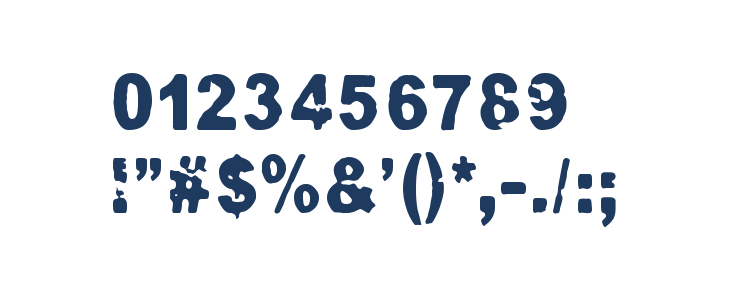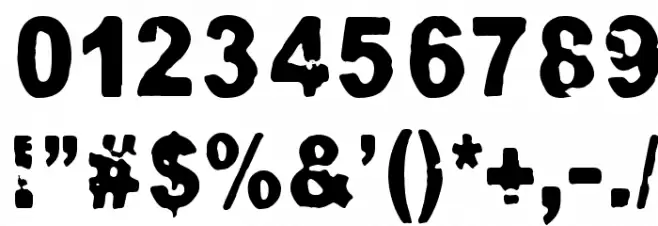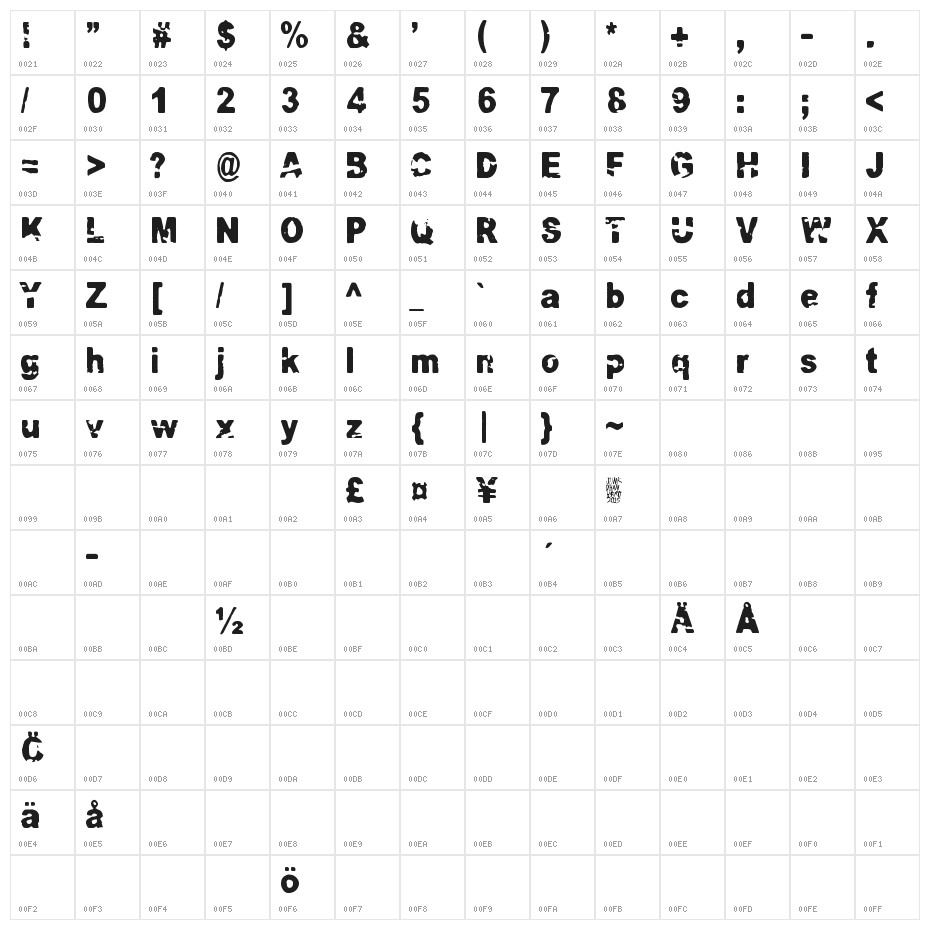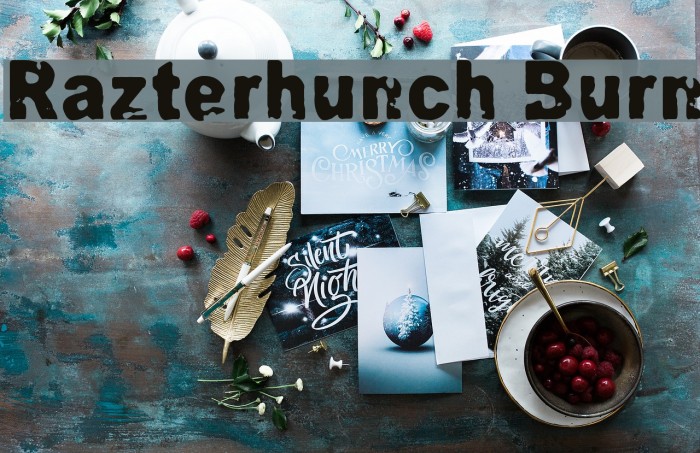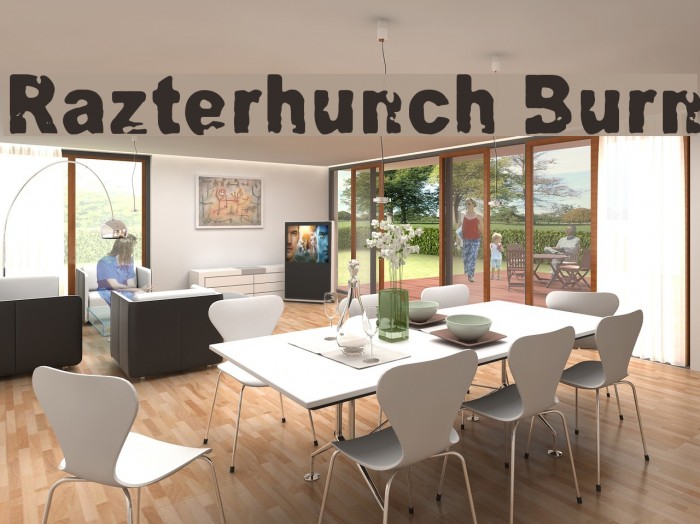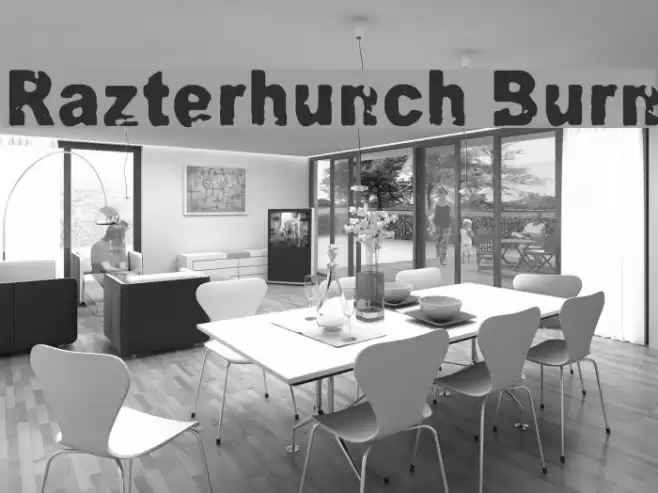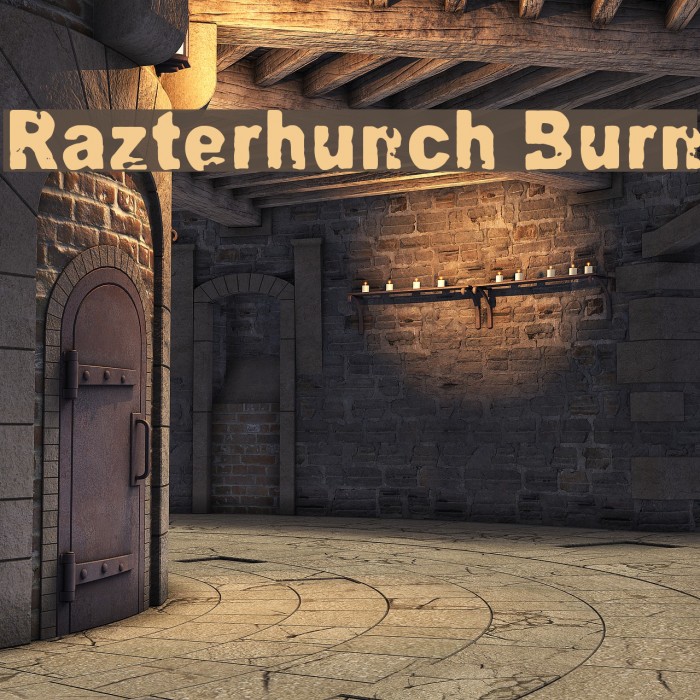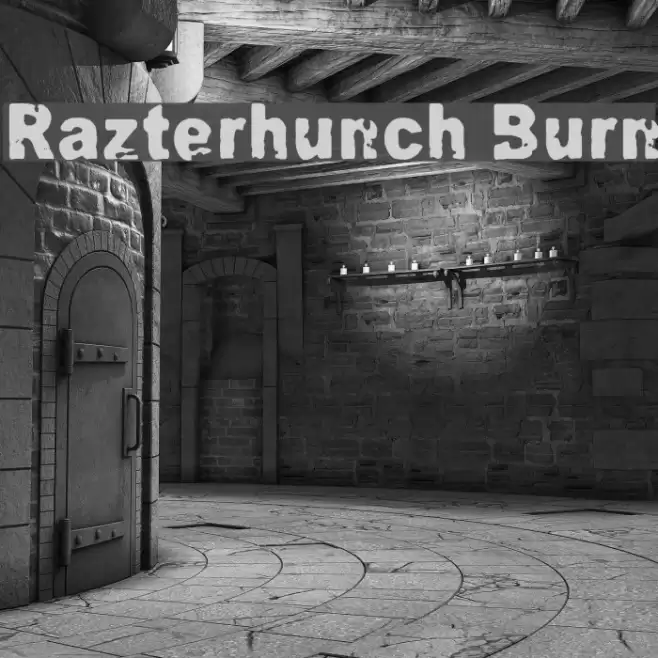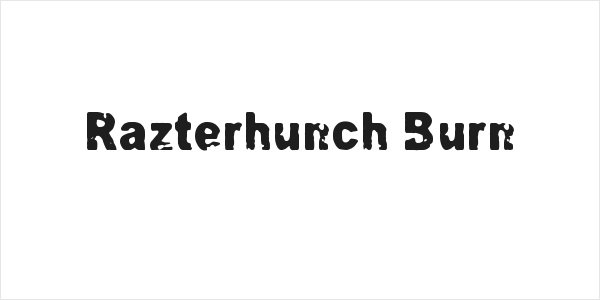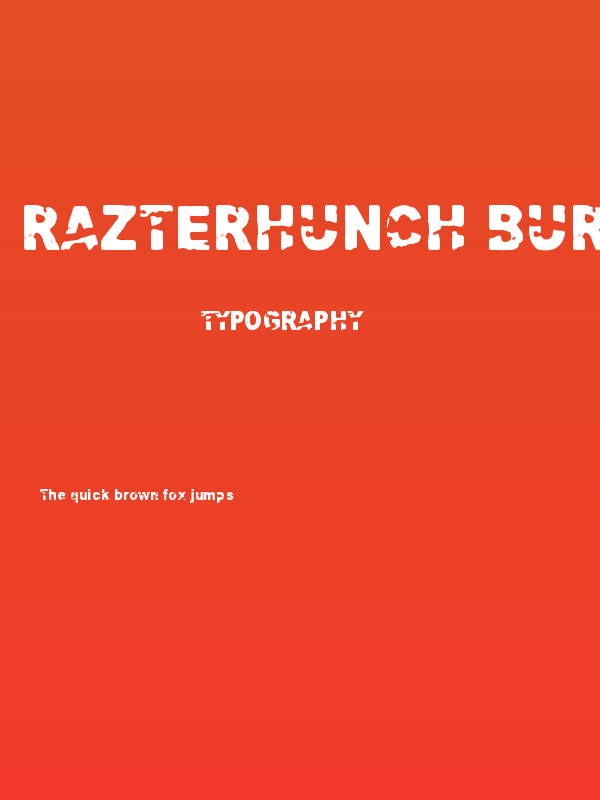
Razterhunch Burn Font
Razterhunch Burn Description
This font features a bold and distressed style, characterized by its rough, textured appearance that mimics a worn or eroded surface. The uppercase and lowercase letters, as well as numbers and special characters, exhibit a consistent ruggedness, giving the impression of a font that has been through significant wear and tear. The design is striking and eye-catching, making it ideal for projects that require a bold statement. The irregularities in the letterforms add a unique and edgy feel, perfect for creative and unconventional designs.
A bold, distressed font with a rugged, textured appearance from Distorted Eroded fonts.
• Proposed Projects: Ideal for posters, album covers, branding for edgy products, and any design needing a bold, distressed look.
• Overall Style: Decorative
• Use Case: Headlines, Logos, Posters